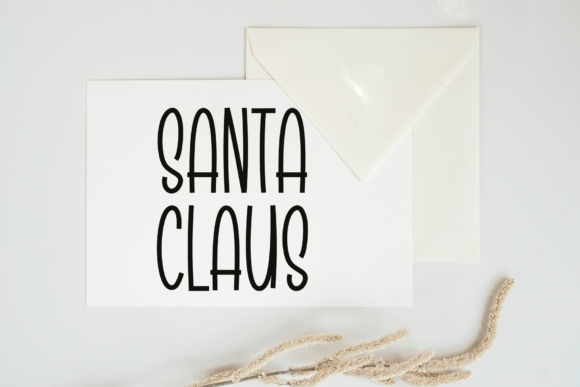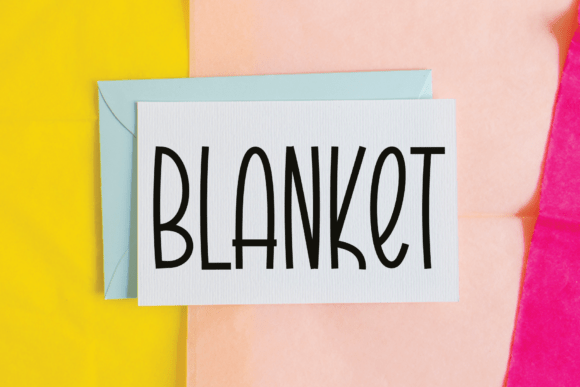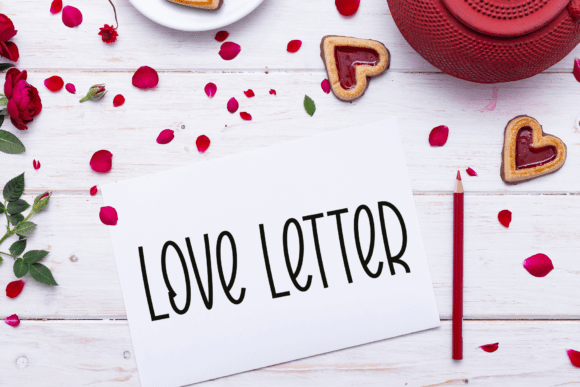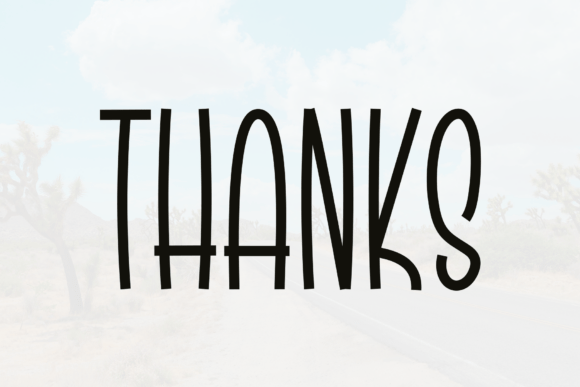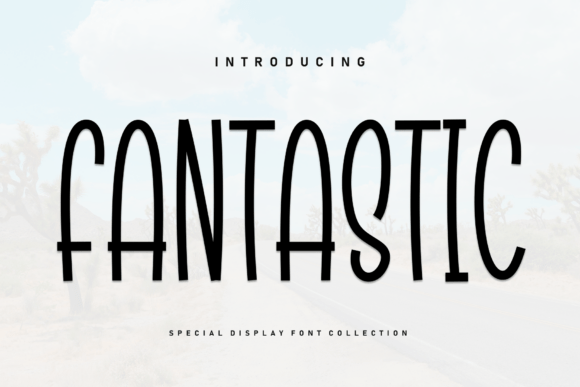
Fantastic Font: Elevate Your Designs with a Relaxed yet Luxurious Touch
In the world of typography, fonts play a crucial role in conveying the tone and personality of a design. Whether you’re a seasoned designer or a crafty DIY enthusiast, finding the perfect font can make all the difference in creating visually stunning and effective designs. If you’re on the hunt for a font that exudes a relaxed yet luxurious feel, look no further than Fantastic Font. In this article, we’ll dive into the unique characteristics of Fantastic Font and explore its endless possibilities for elevating your designs.
What is Fantastic Font?
Fantastic Font is a handwritten display font that boasts a distinctive, marker-drawn aesthetic. Its relaxed and sporty vibe makes it an excellent choice for a wide range of design applications. With its elegant yet casual feel, Fantastic Font is perfect for designers and crafters seeking to add a touch of sophistication to their work without appearing too formal.
Key Features of Fantastic Font
- Handwritten display font: Fantastic Font’s handwritten style gives it a personal and approachable feel, making it ideal for designs that require a human touch.
- Marker-drawn aesthetic: The font’s marker-drawn appearance adds a playful and creative spin to any design.
- Relaxed and sporty feel: Fantastic Font’s casual vibe makes it perfect for designs that require a laid-back, effortless look.
- Luxurious and elegant: Despite its casual feel, Fantastic Font still conveys a sense of sophistication and luxury, making it suitable for high-end designs.
Design Applications for Fantastic Font
Fantastic Font’s versatility makes it an excellent choice for a wide range of design applications. Here are some ideas to get you started:
- Branding and logos: Use Fantastic Font to create a memorable and stylish logo that reflects your brand’s personality.
- Wedding supplies: Add a touch of elegance and whimsy to your wedding designs, such as invitations, programs, and stationery.
- Greeting cards: Create beautiful and heartfelt greeting cards for special occasions, like birthdays, holidays, and anniversaries.
- Fashion and lookbooks: Use Fantastic Font to add a luxurious and high-end feel to your fashion designs, lookbooks, and marketing materials.
- Marketing promotions: Elevate your marketing campaigns with Fantastic Font’s sophisticated yet casual aesthetic.
Tips for Using Fantastic Font
To get the most out of Fantastic Font, here are some tips to keep in mind:
- Pair with complementary fonts: Combine Fantastic Font with other fonts that complement its style, such as serif or sans-serif fonts, to create visual interest.
- Experiment with colors: Play around with different color schemes to find the perfect match for your design and Fantastic Font.
- Use for headlines and titles: Fantastic Font’s display style makes it perfect for headlines and titles, where you want to make a statement.
Fantastic Font is a unique and versatile font that can elevate your designs with its relaxed yet luxurious feel. Whether you’re a designer or a crafter, this font is sure to inspire creativity and add a touch of sophistication to your work. With its endless possibilities and easy-to-use style, Fantastic Font is a must-have for anyone looking to take their designs to the next level.